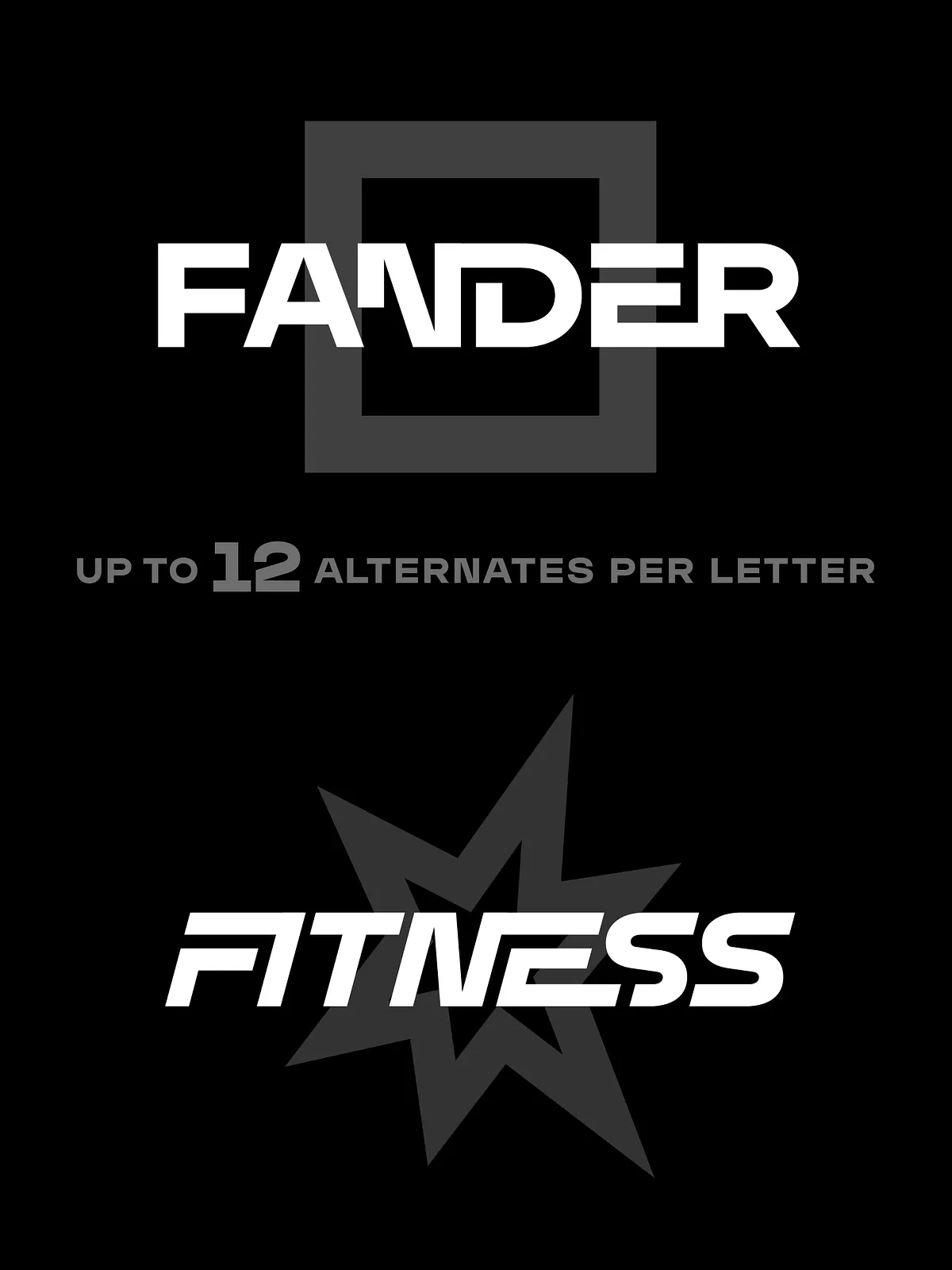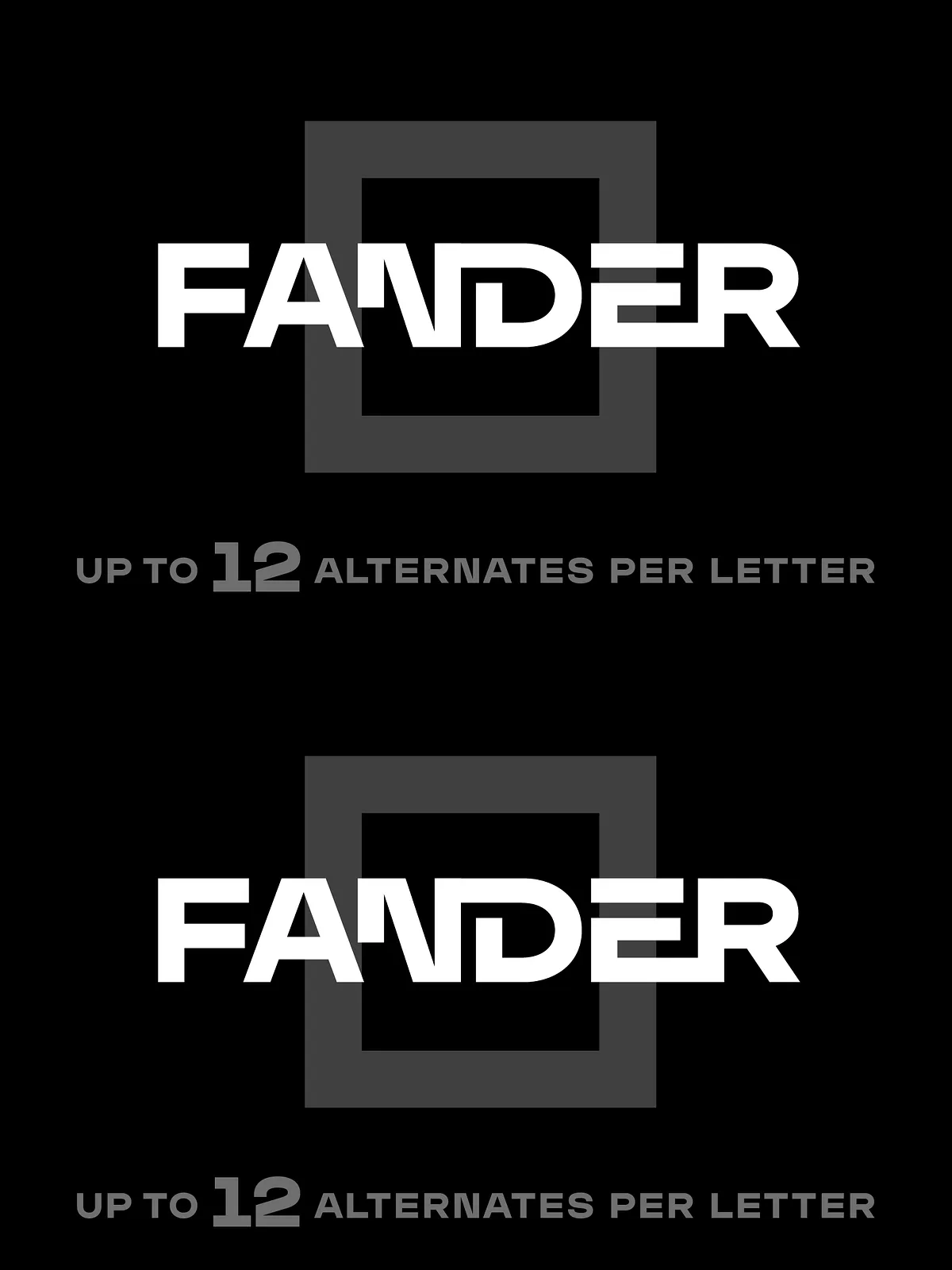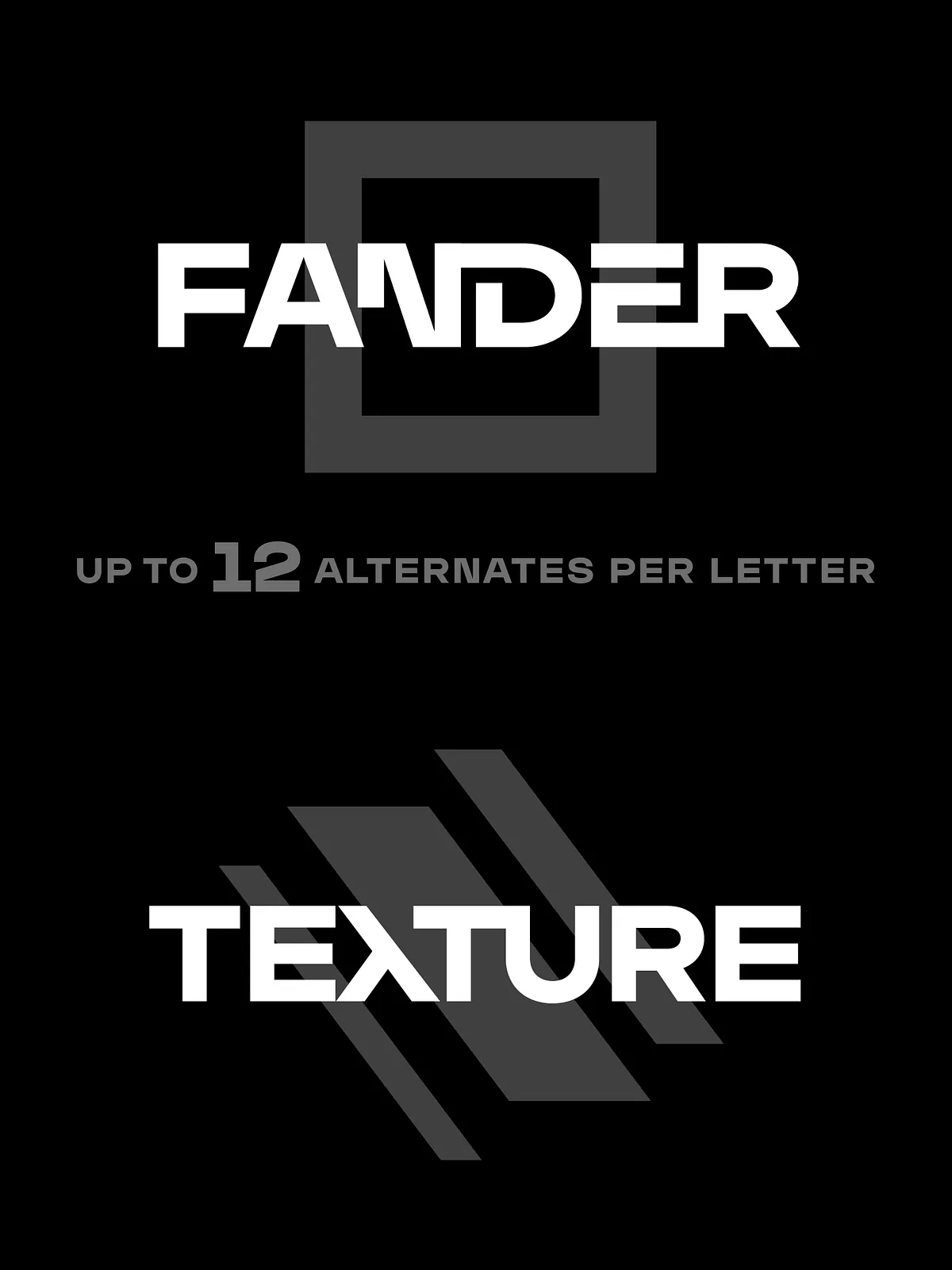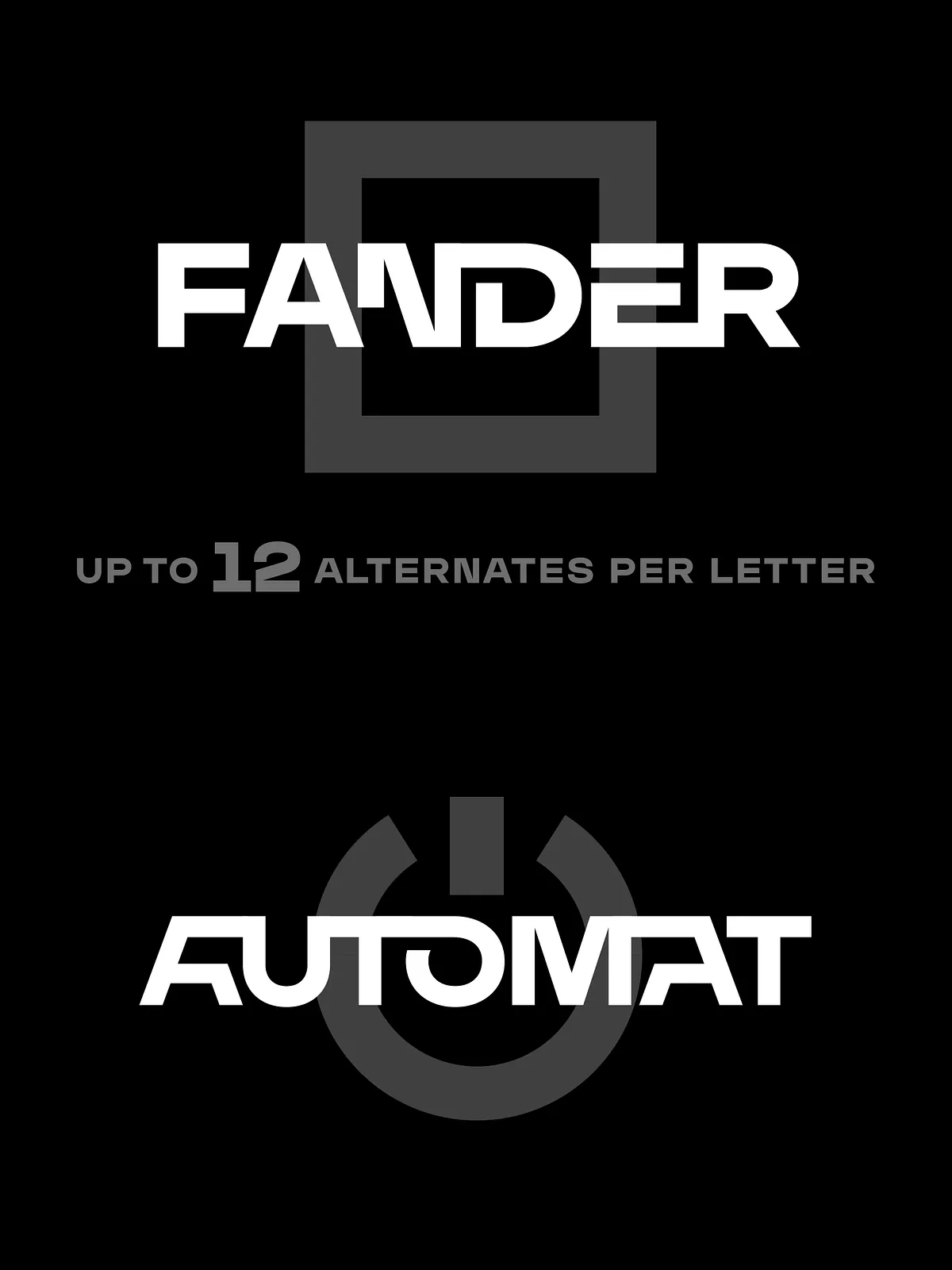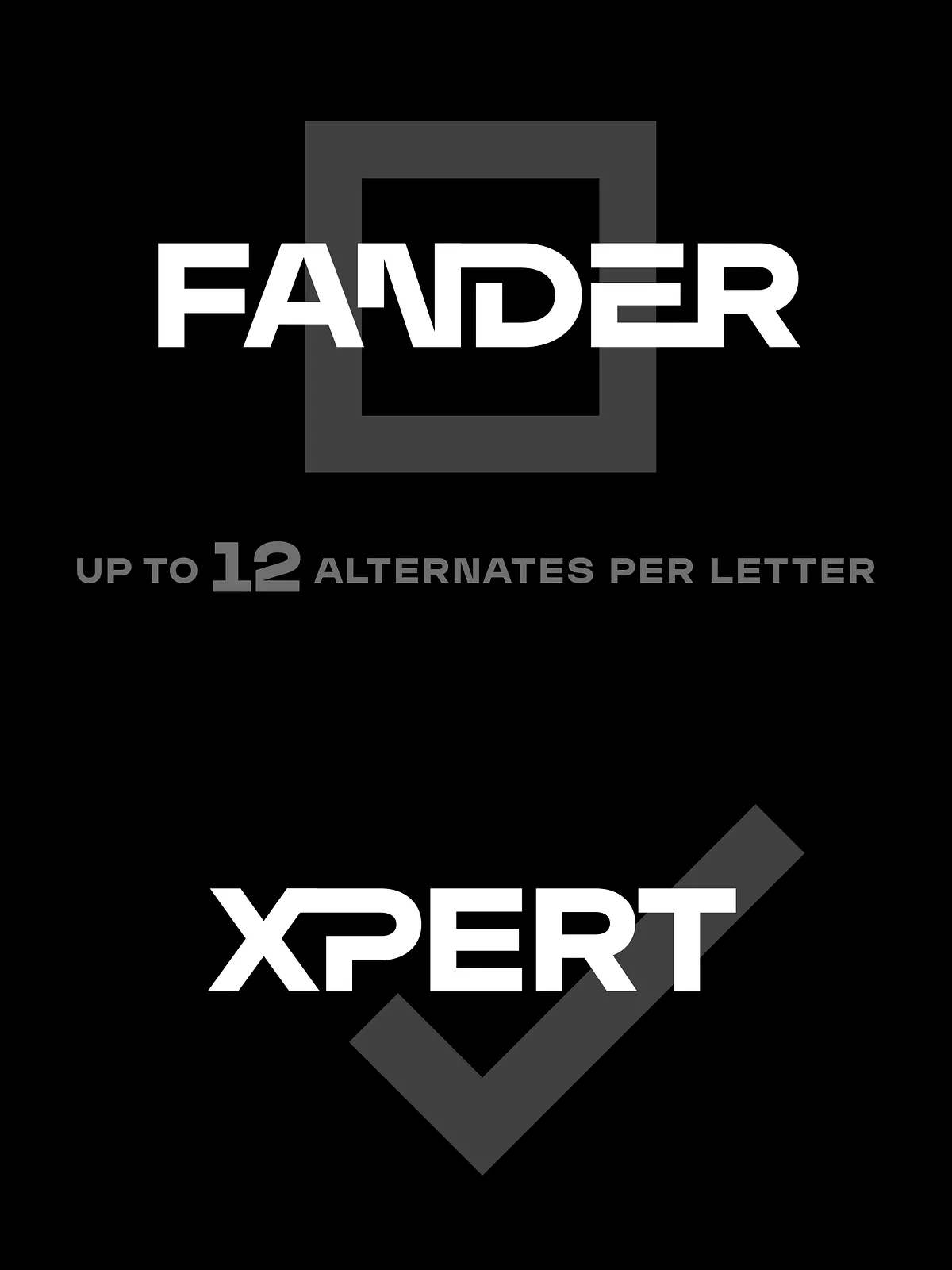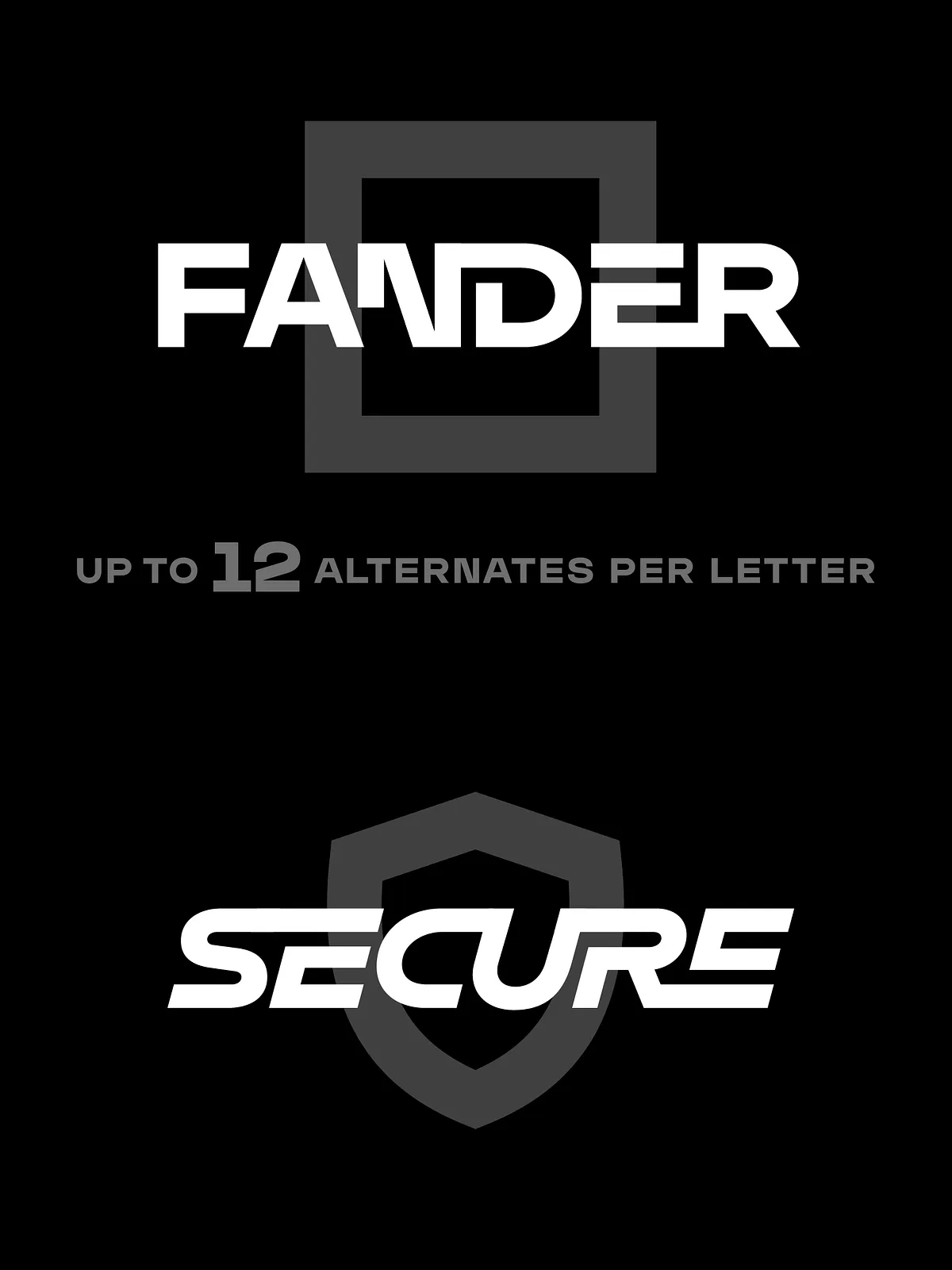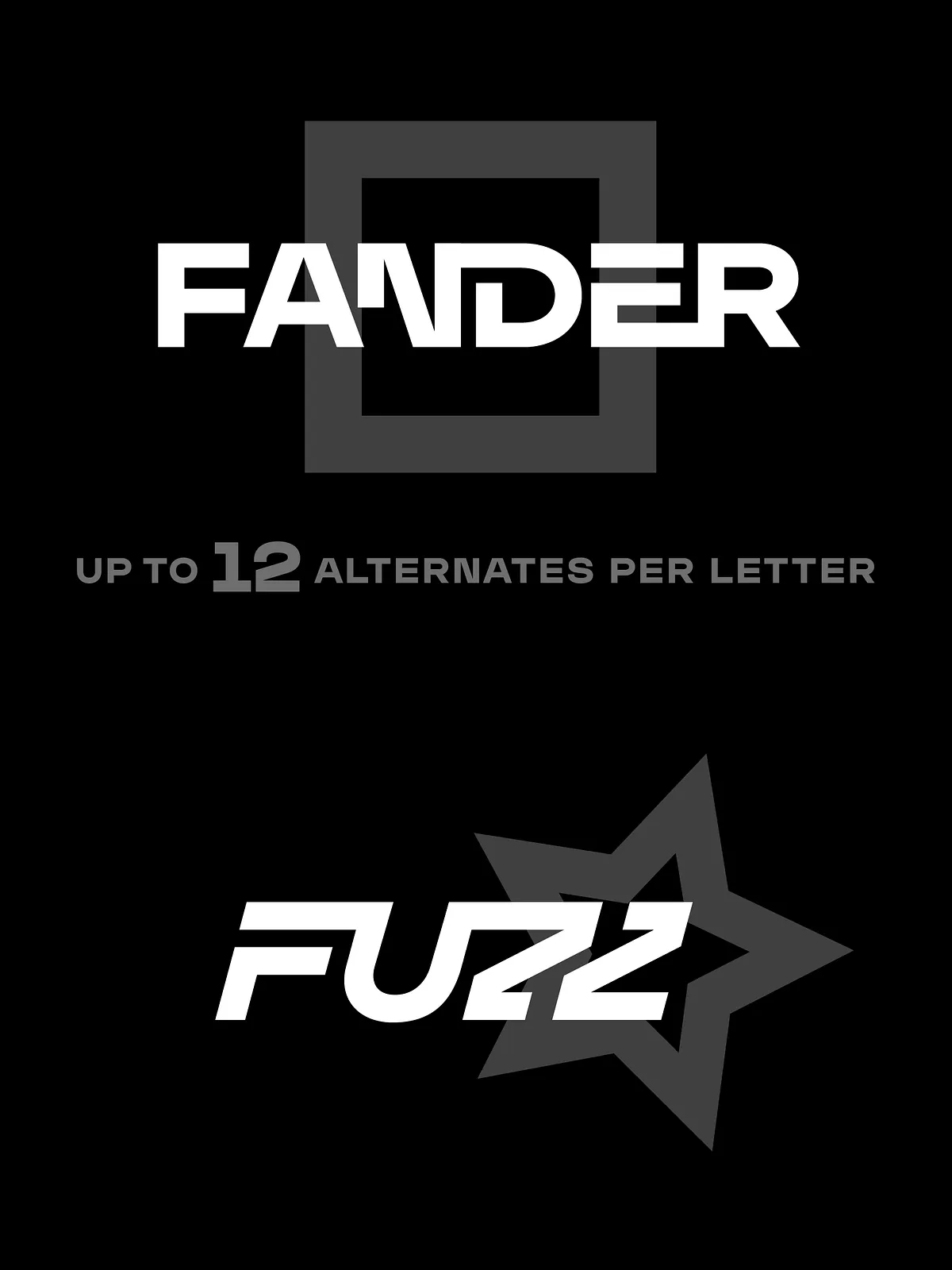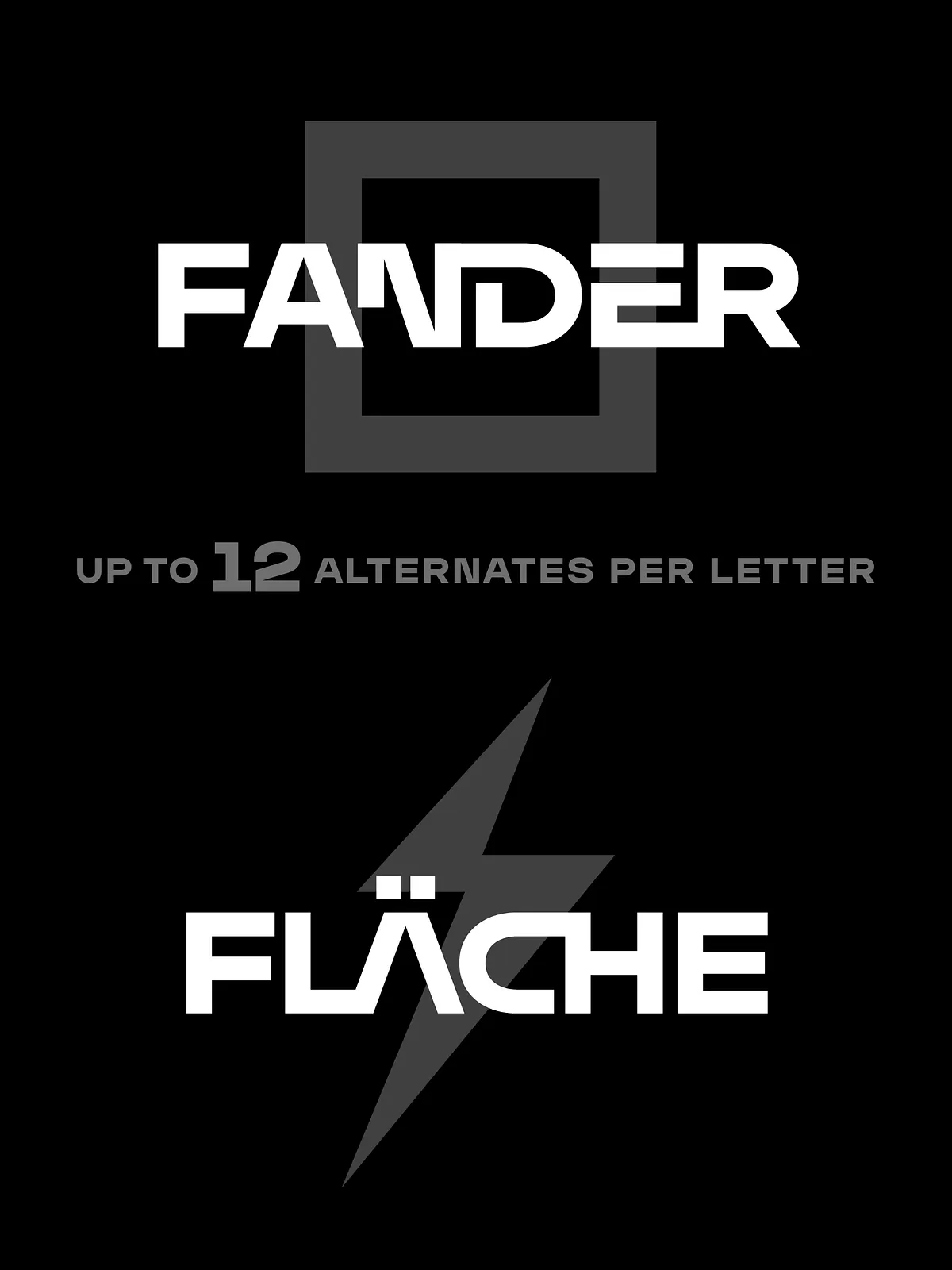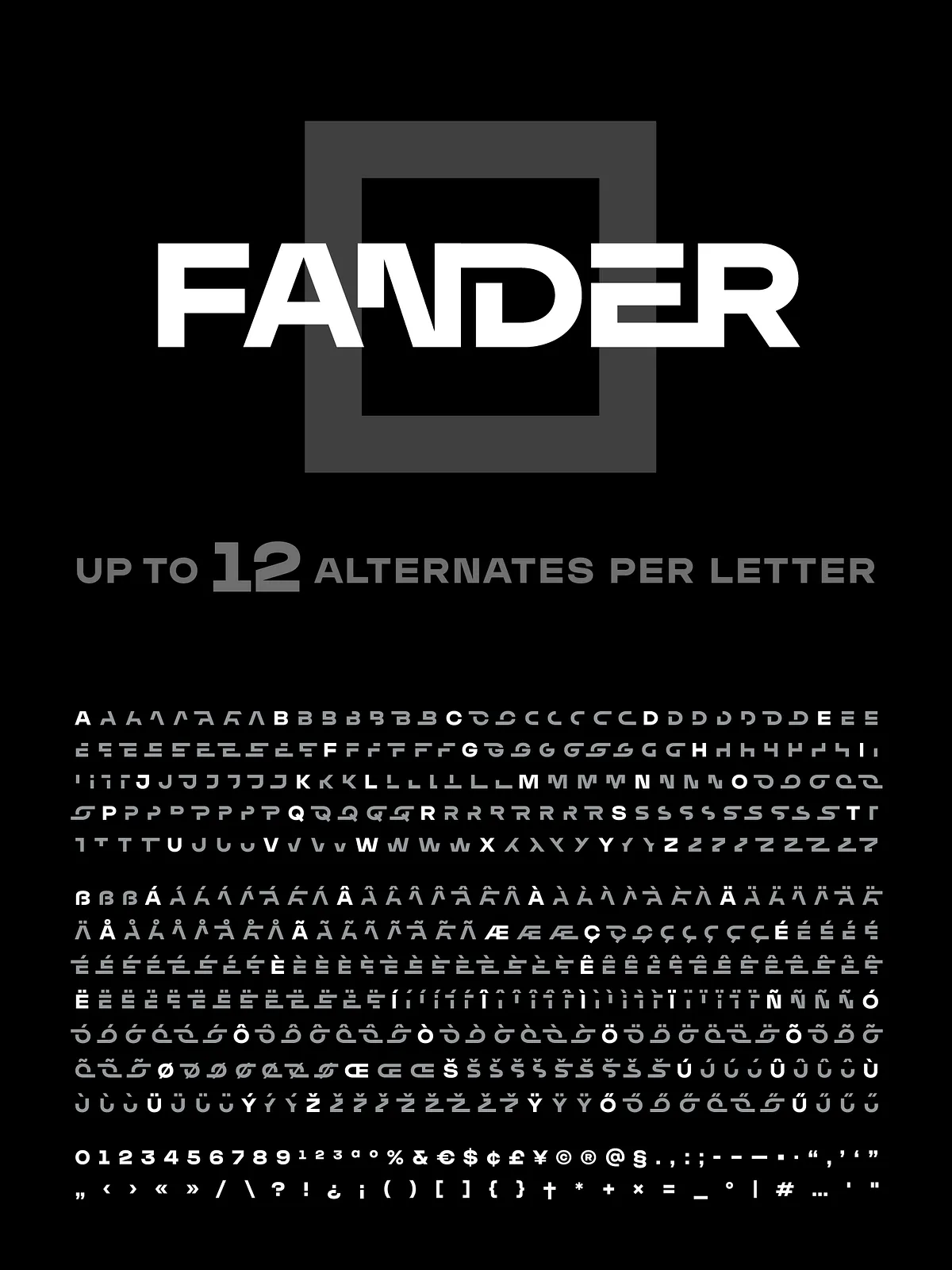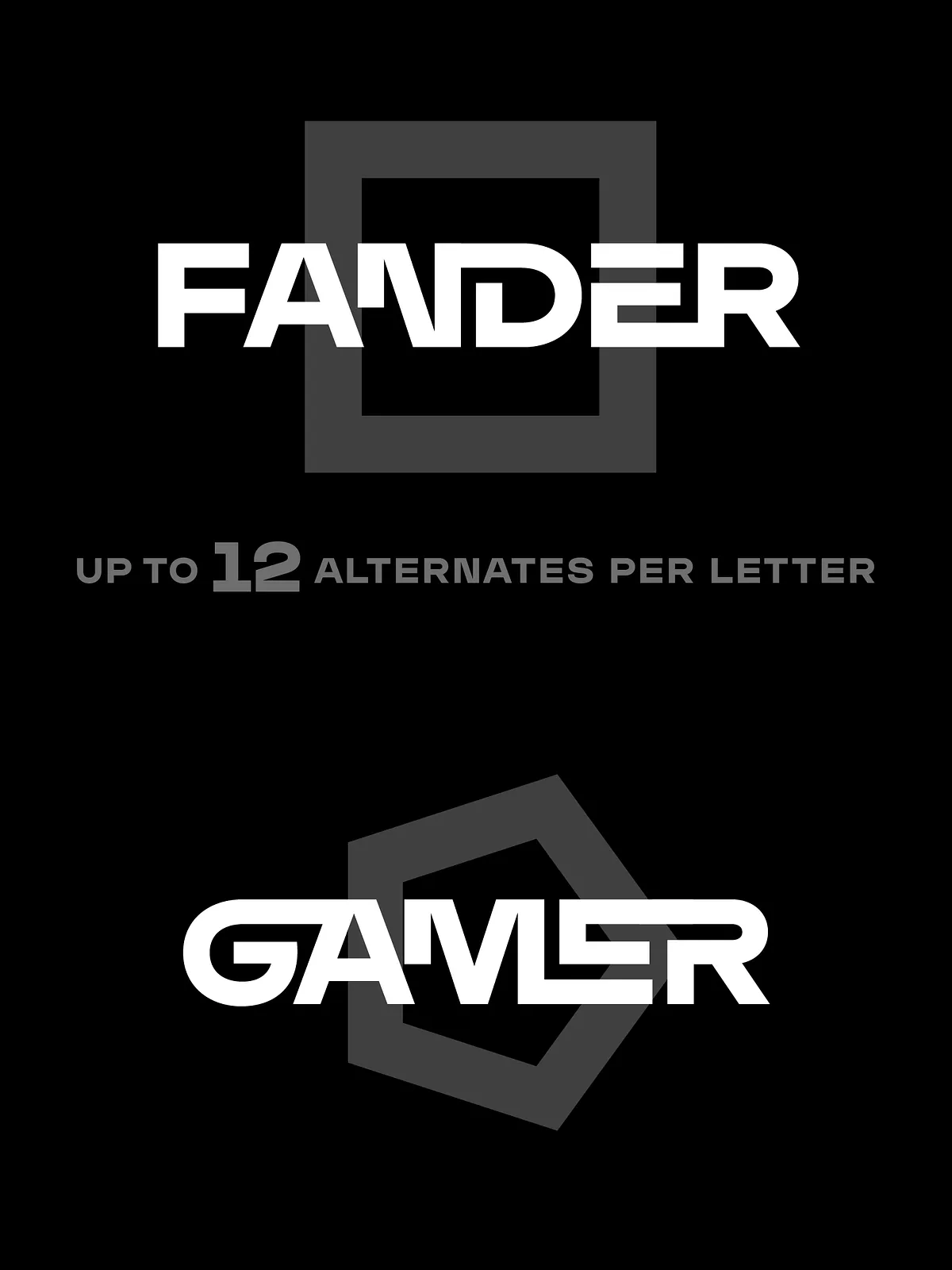
Fander Font
Fander font family is designed to create minimalist logos, wordmarks, titles, taglines. Each letter of the font has up to 12 alternates. You can mix default characters and alternate characters to get the best combinations.
Each font contains:
Latin letters and up to 12 alternates per letter
basic multilingual letters and up to 12 alternates per letter
numbers
extra characters
punctuation